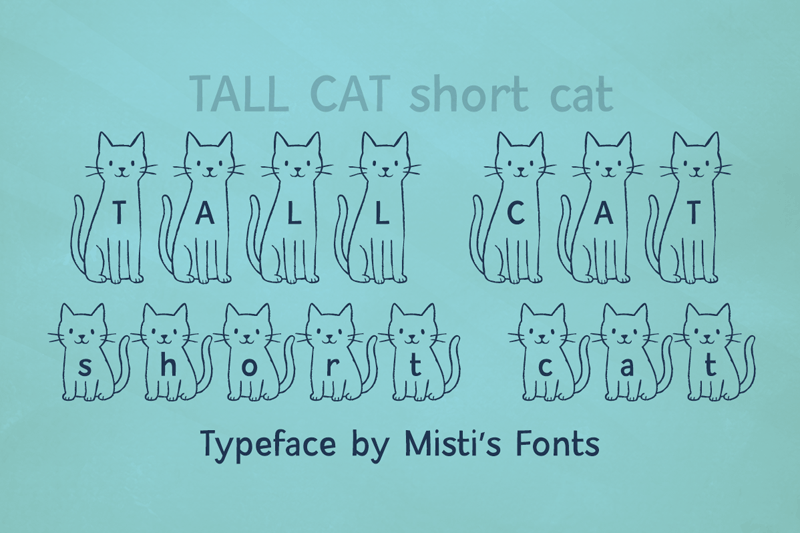
Font name: | Tall Cat Short Cat |
Tall Cat Short Cat typeface is a playful and imaginative decorative font that brings letters to life through charming feline illustrations. Terms Of Use and Commercial Licensing: https://mistifonts.com/tall-cat-short-cat/ |